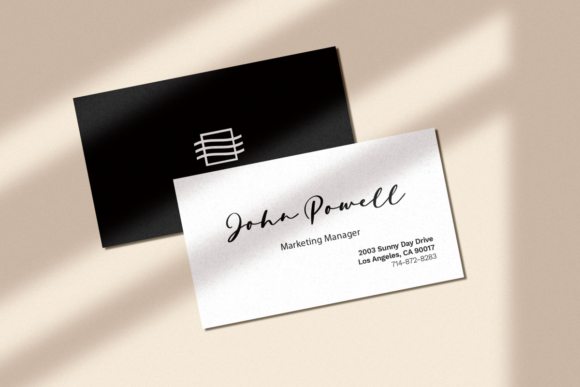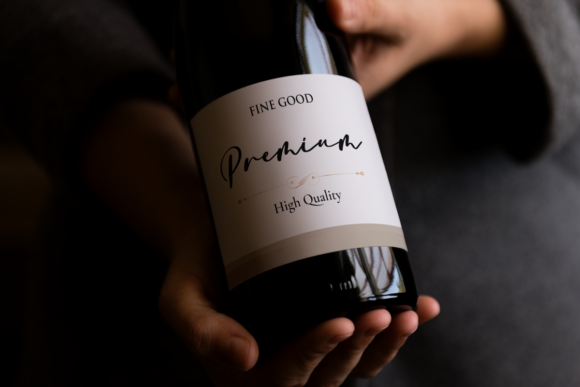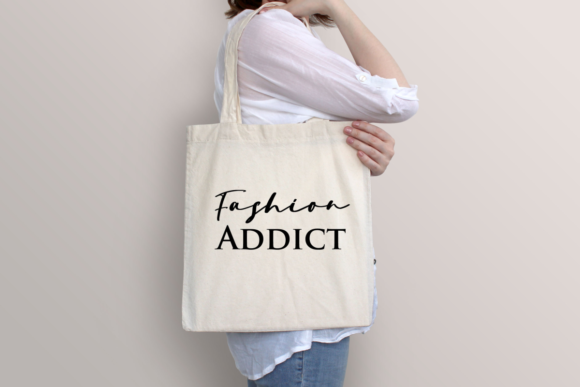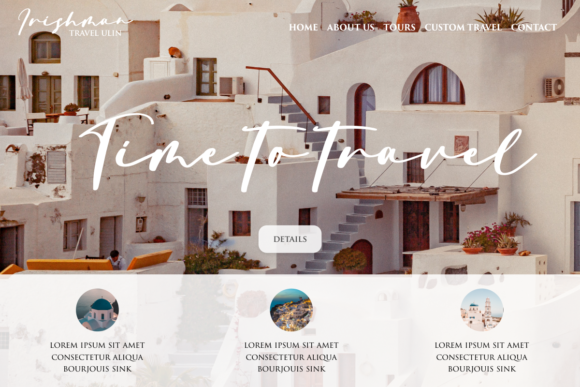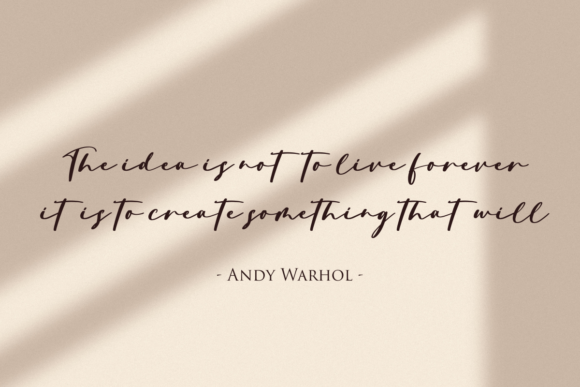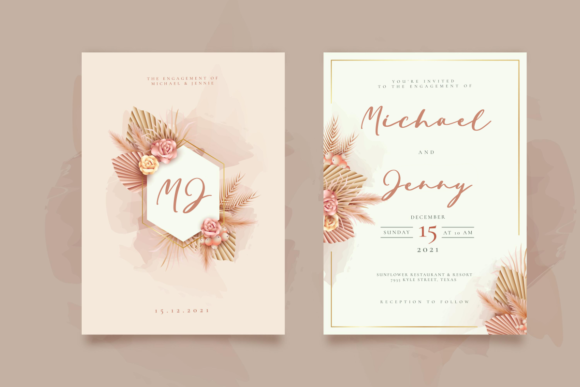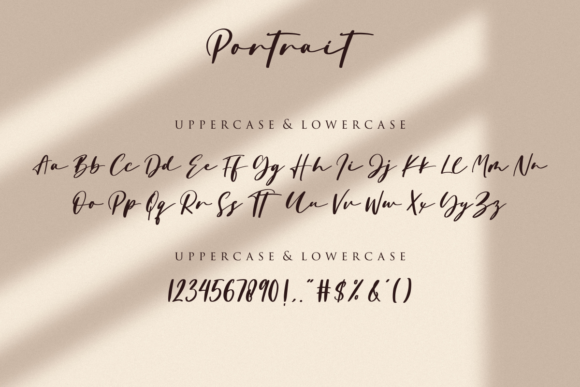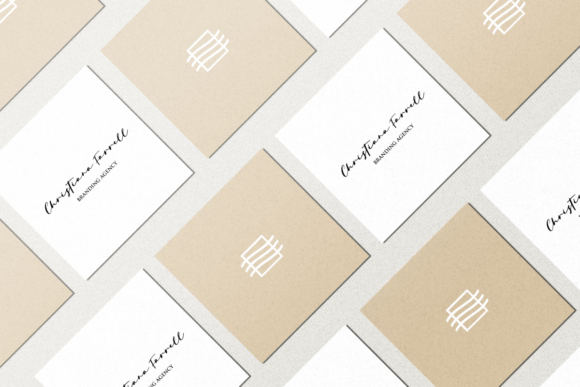
Portrait Font
Portrait is an elegant, flowing and delicate script font. It has a classy, elegant and modern look that can be used for logos, branding, invitations, stationery, wedding designs, social media posts, and much more!